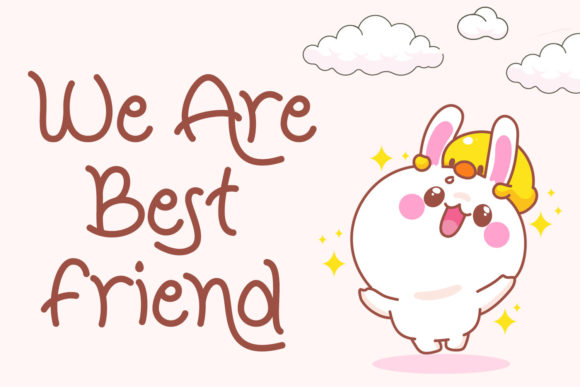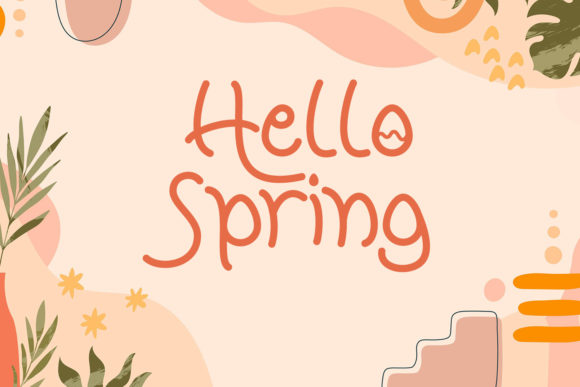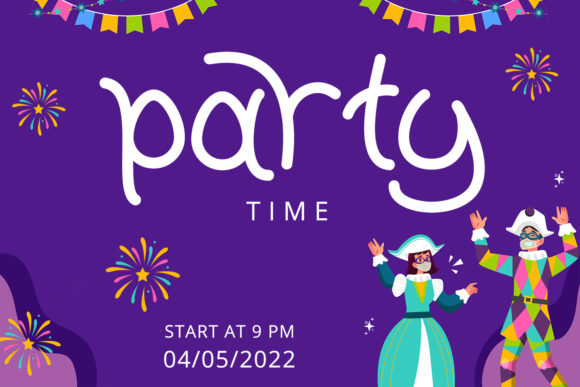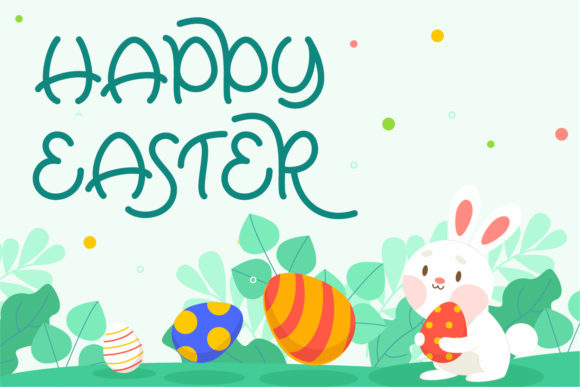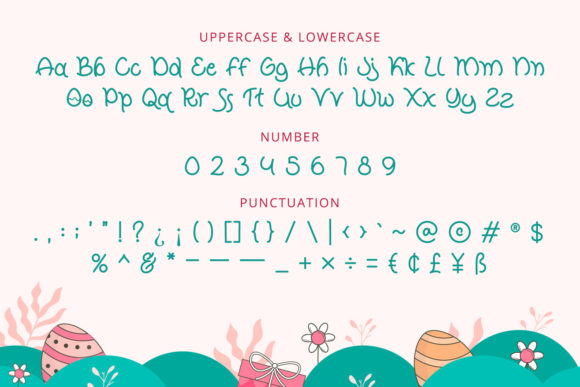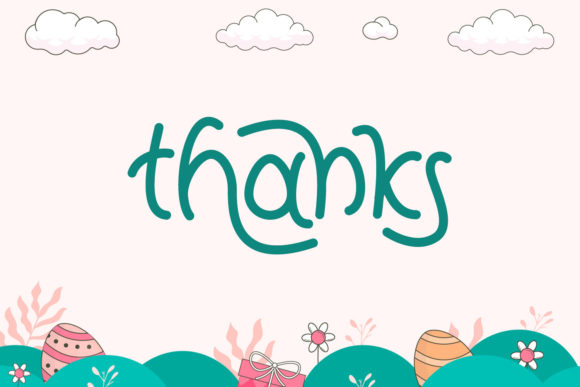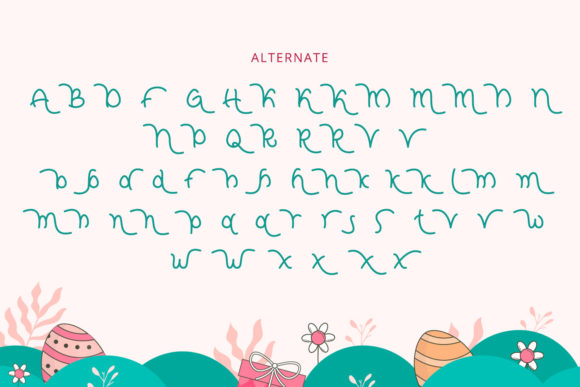
Easter Memory Font
About Easter Memory Font
Introducing “Easter Memory,” a delicate and thin lettered script font that adds an air of elegance and sophistication to your design projects. With its trendy and stylish appeal, “Easter Memory” has the power to elevate and enhance each of your creative creations, ensuring that they leave a lasting impression on your audience.
The slender and refined letterforms of “Easter Memory” create a sense of grace and delicacy, making it an ideal choice for projects that require a touch of subtle beauty. Whether you’re working on invitations, greeting cards, branding materials, social media graphics, or any other design that calls for an elegant script font, “Easter Memory” has the versatility to adapt and shine.
One of the standout features of “Easter Memory” is its PUA encoding, which provides you with effortless access to a wide range of glyphs and swashes. This gives you the creative freedom to experiment with different design elements and customize your work to suit your unique vision.
Imagine the impact of “Easter Memory” on your designs—the gentle and flowing curves of each letter create a captivating rhythm that draws the viewer in and guides their gaze. Whether you’re aiming for a minimalist and refined look or a more ornate and decorative design, “Easter Memory” empowers you to bring your creative ideas to life.
With “Easter Memory,” your designs will exude an aura of sophistication and charm, ensuring that they stand out in the world of design. Embrace the elegance and versatility of “Easter Memory” as you embark on your creative journey, confident that this font will add a touch of beauty and allure to each of your creations.